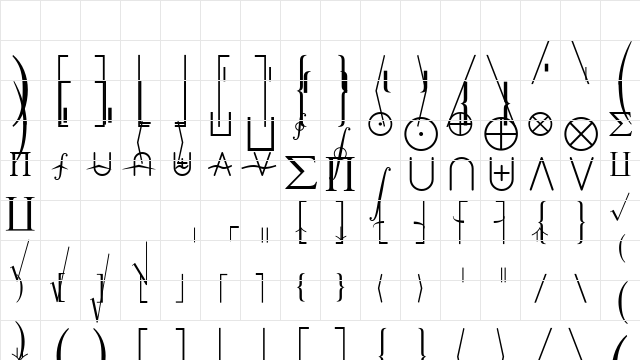
blex Regular
Design Context for blex Typeface
blex offers clean, dependable letterforms without strong stylistic allegiance, making it a practical choice for designers who need flexibility.
Pro Tip: Use blex in both headline and body roles to test its range before committing to a single application.